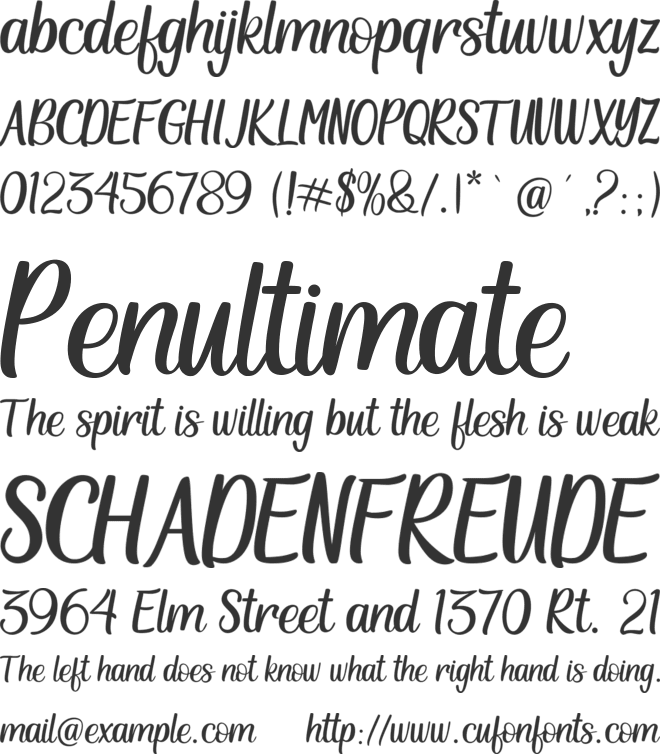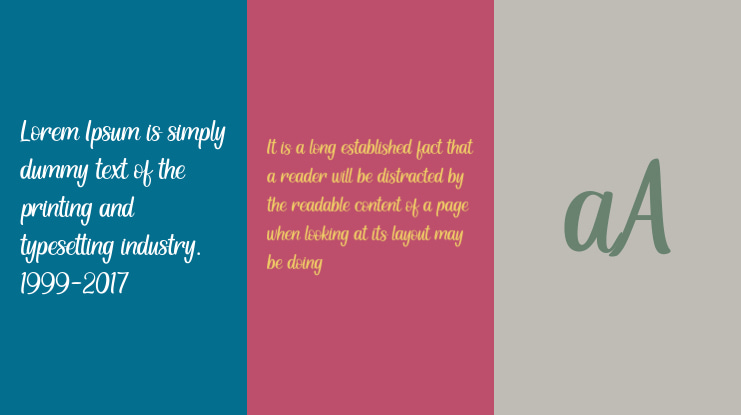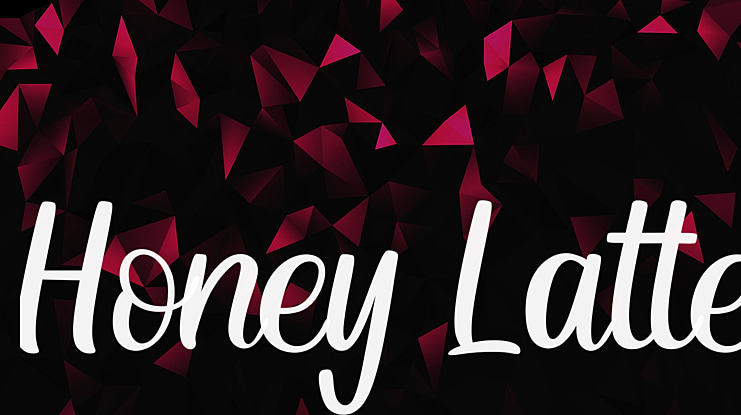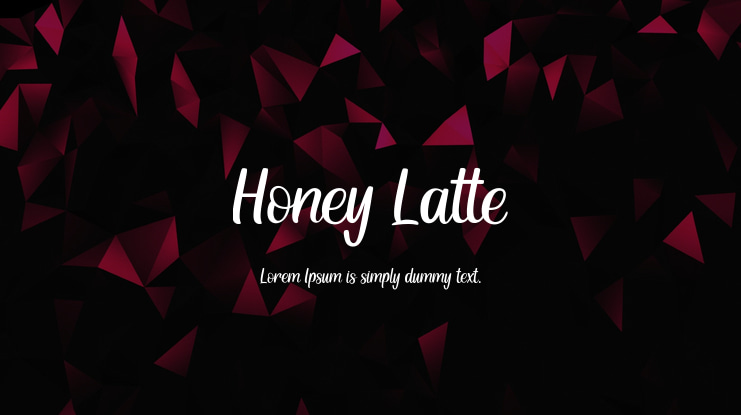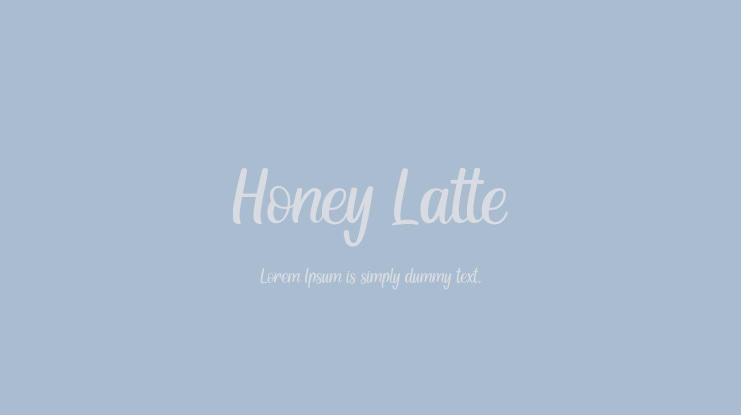
Honey Latte Font
Honey Latte is a unique and elegant handwritten font. It looks beautiful on a variety of designs requiring a personalized style, such as wedding invitations, thank you cards, weddings, greeting cards, logos and so on.